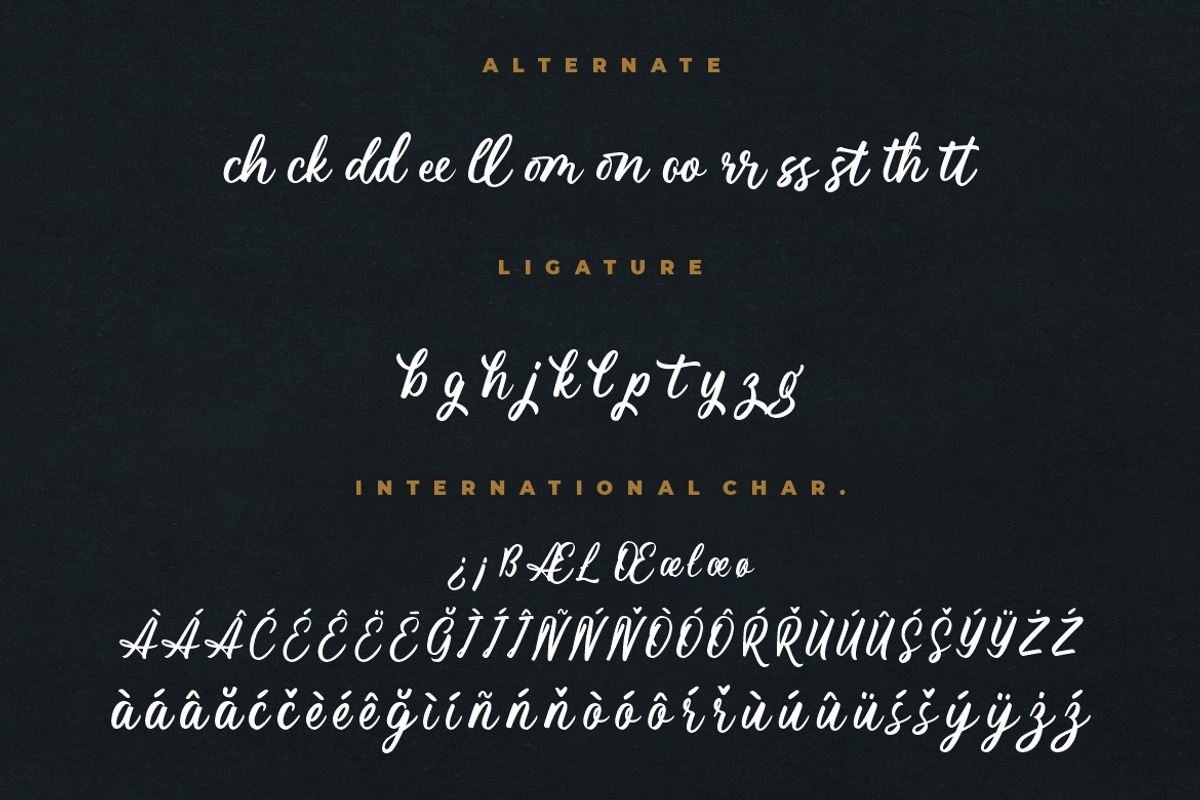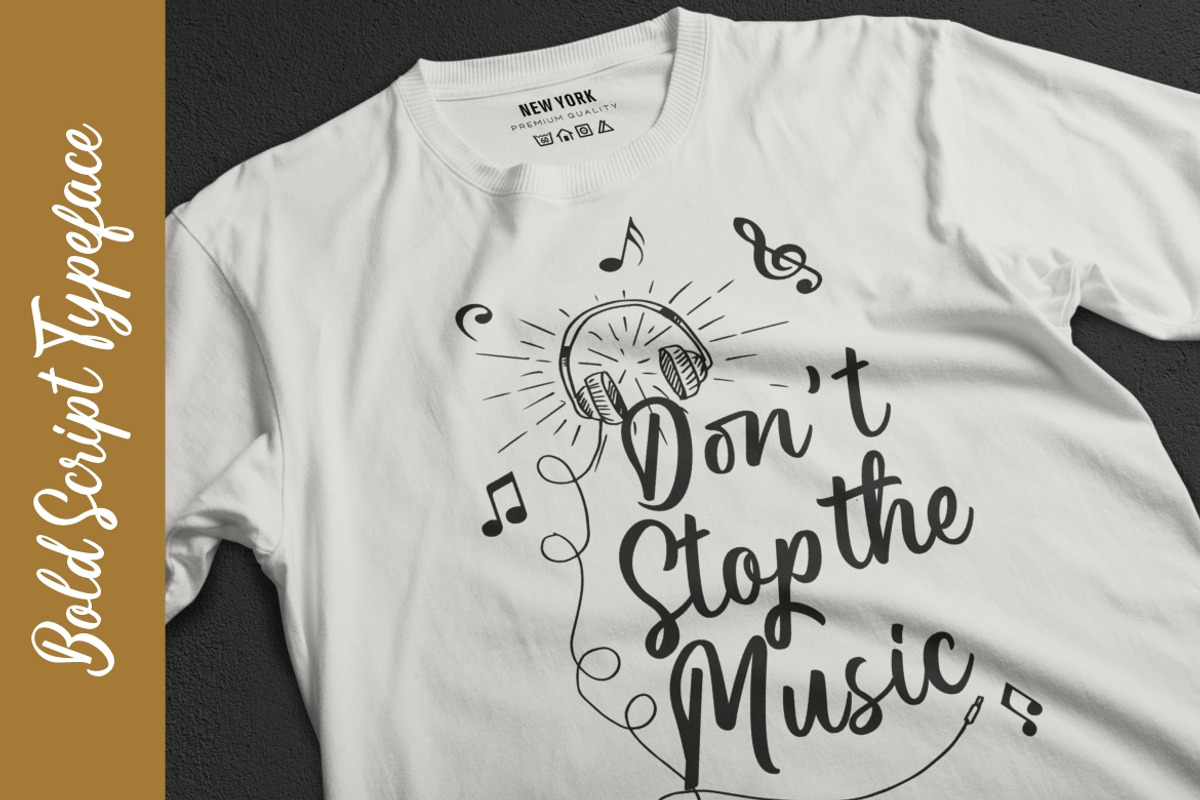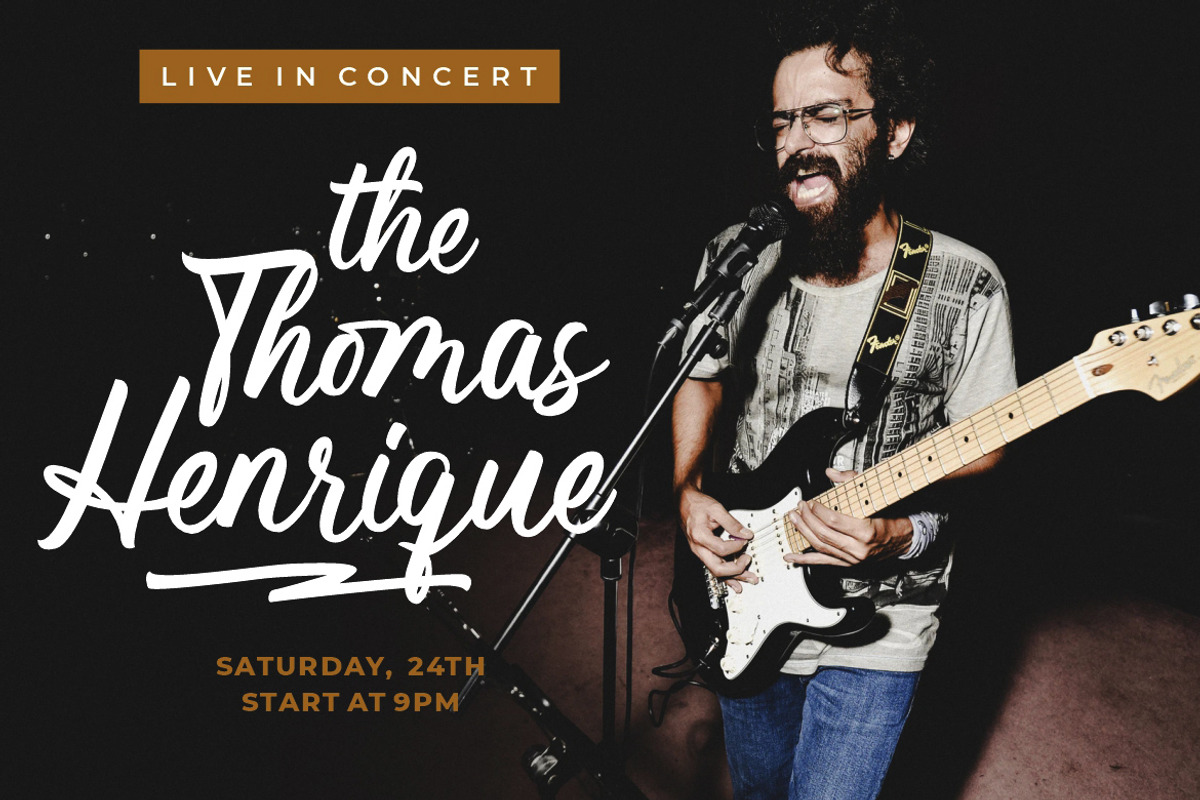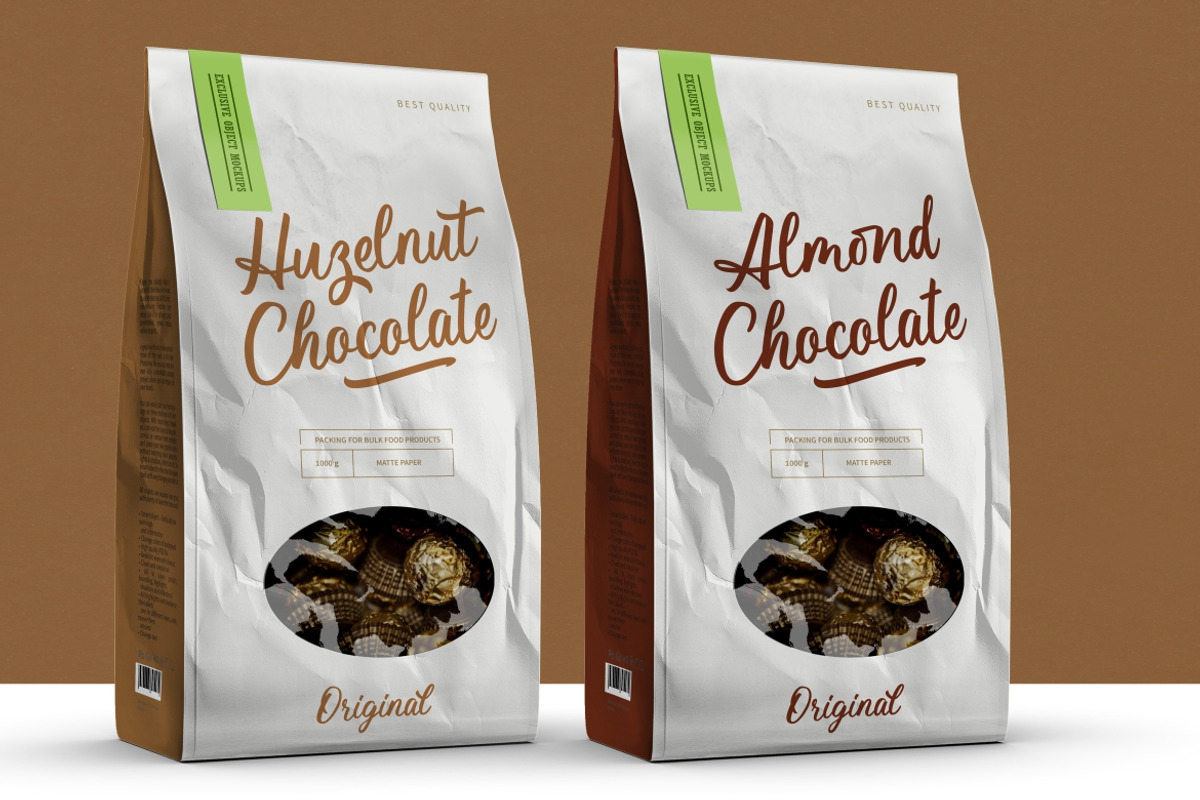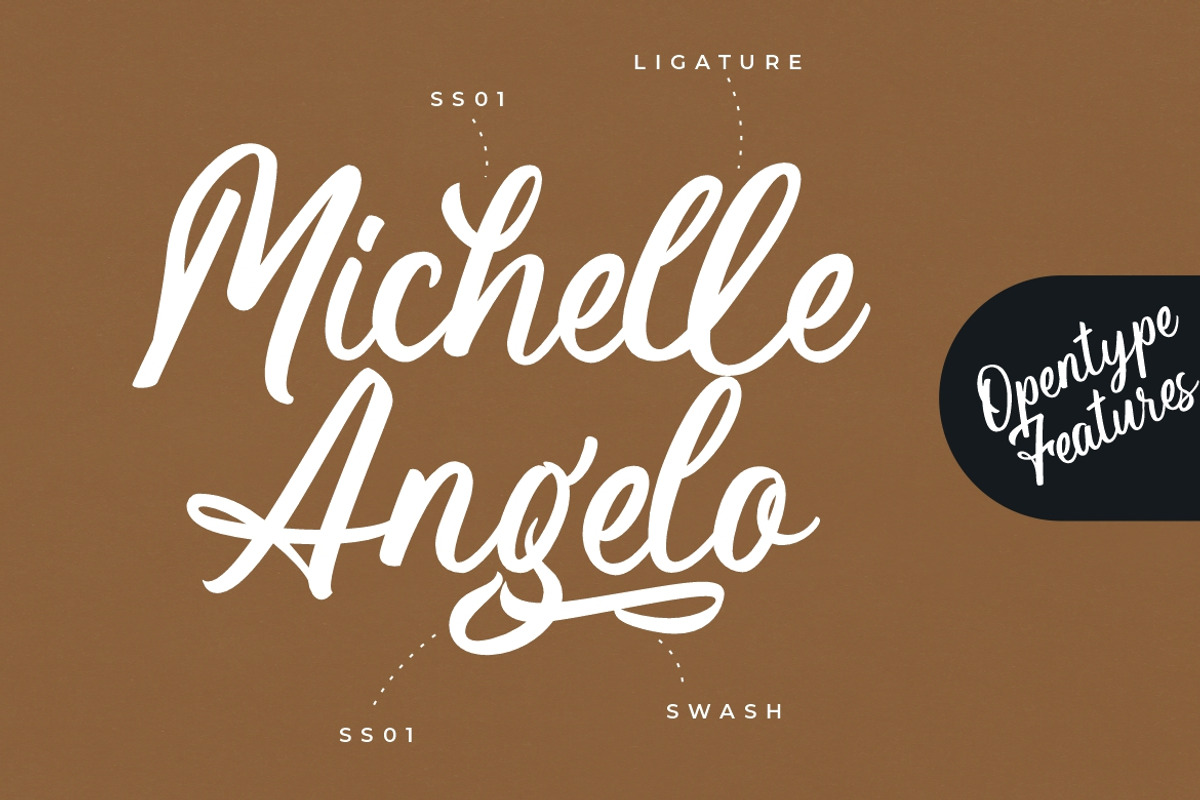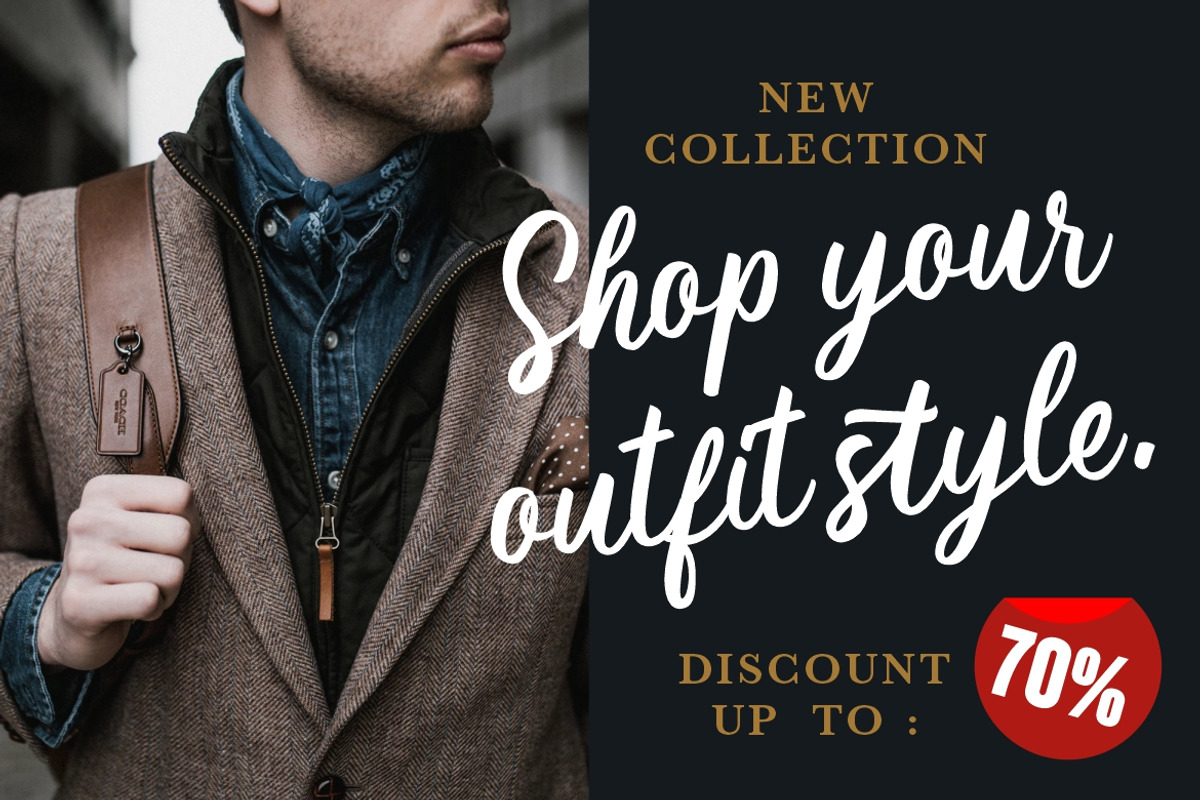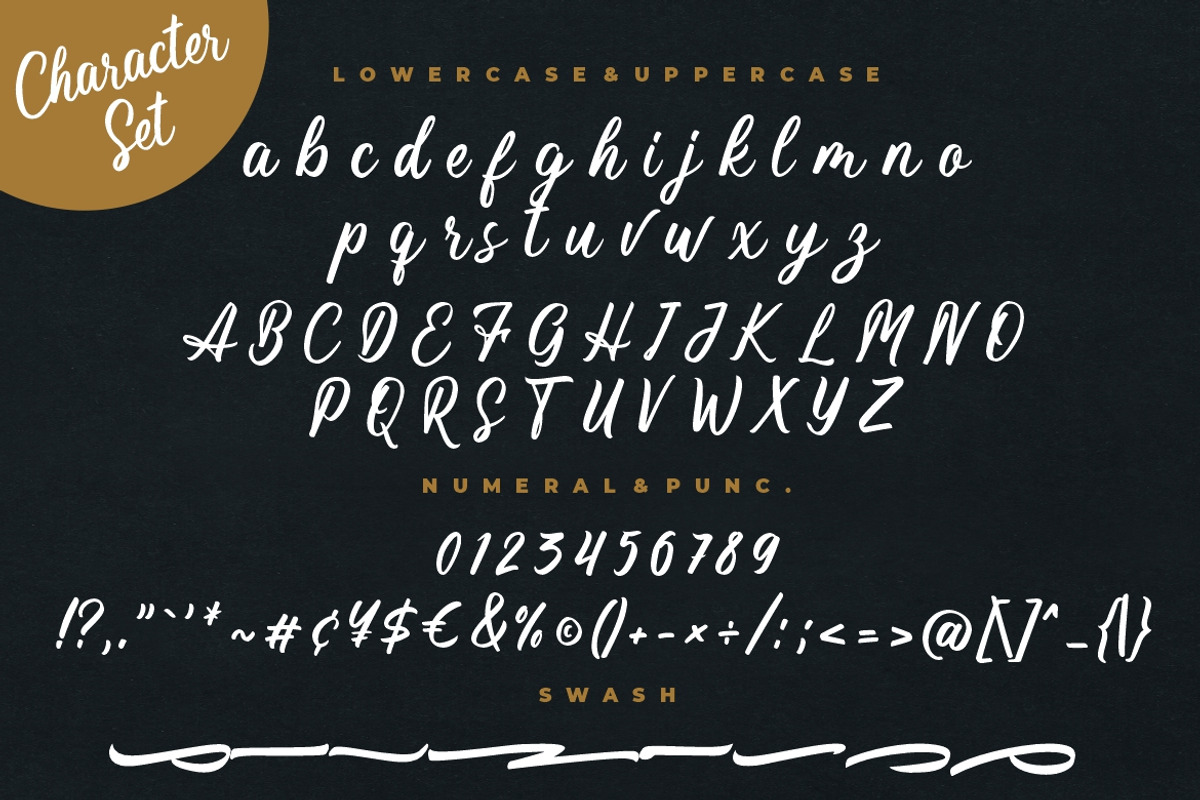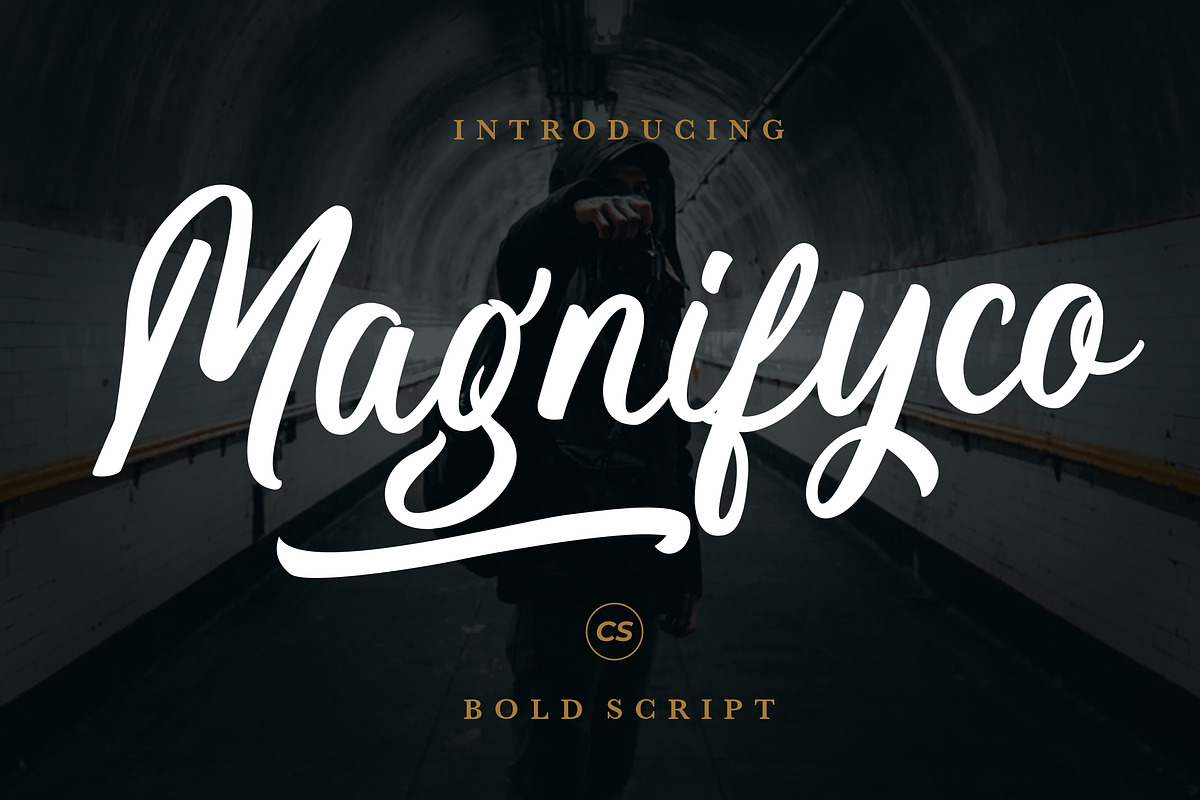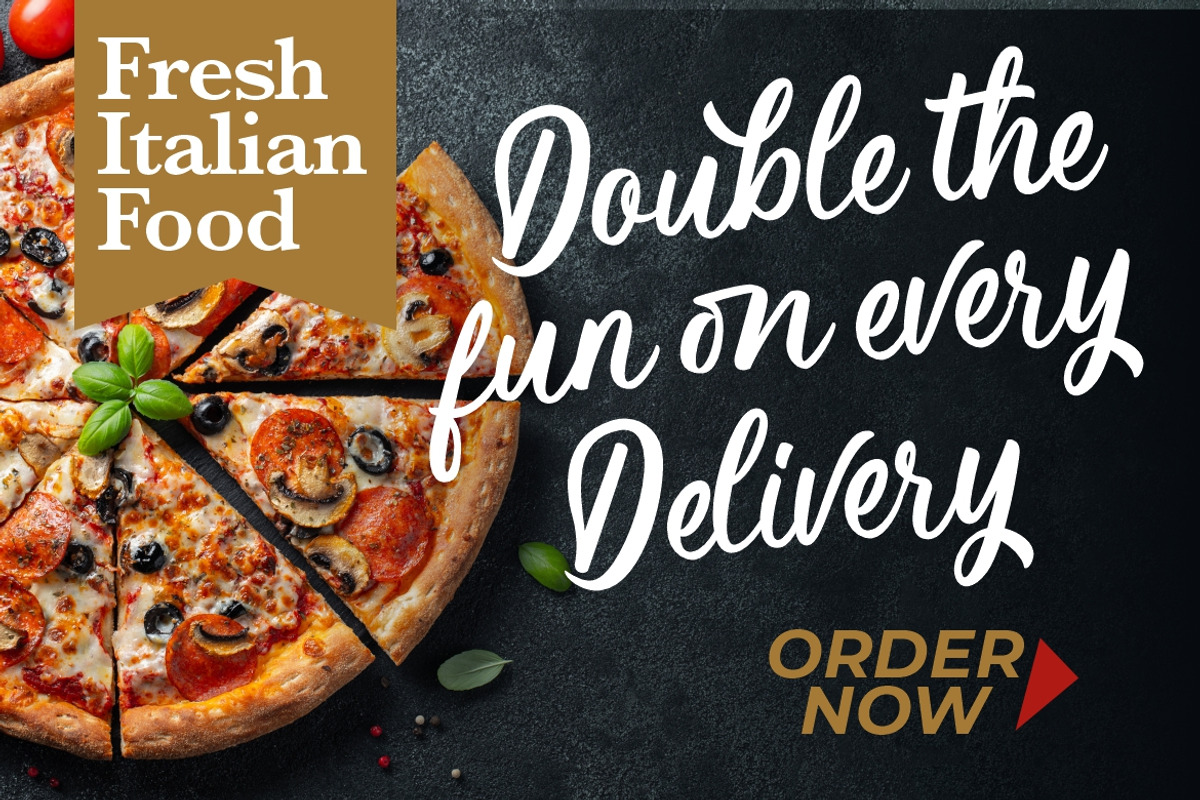
Magnifyco Bold Script
Magnifyco is bold script font that perfect for your latest project.
Magnifyco is perfect for branding projects, logo, wedding designs, social media posts, advertisements, product packaging, product designs, label, photography, watermark, invitation, stationery and any projects that need handwriting taste.
- Ligature & Alternate